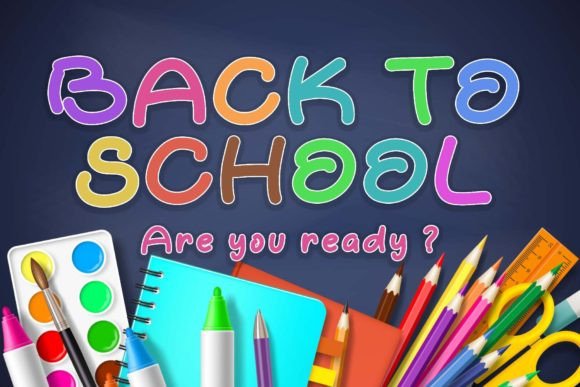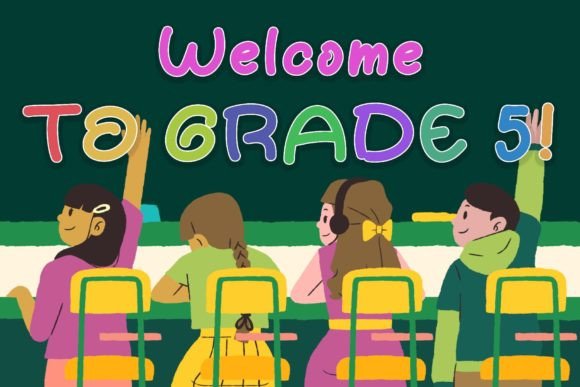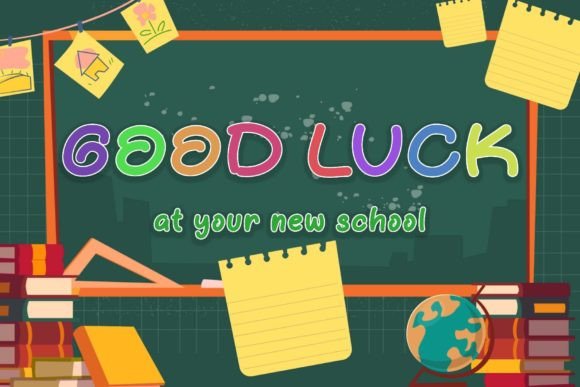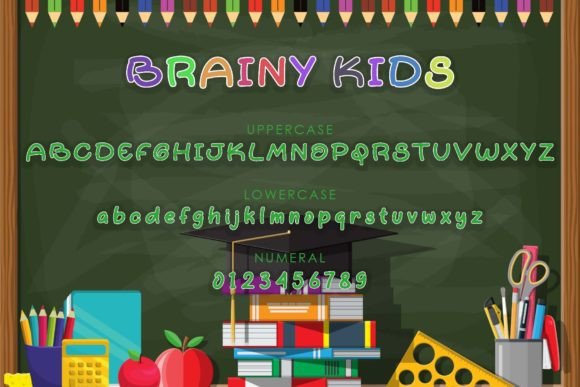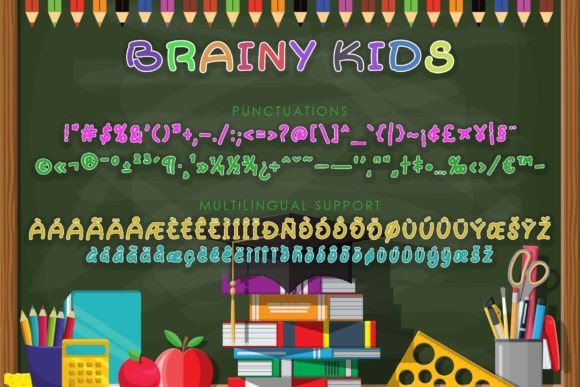
Brainy Kids Font: The Perfect Choice for Designers and Crafters
Are you looking for a unique and elegant display font to make your designs stand out? Look no further than the Brainy Kids Font! This versatile font is perfect for a wide range of projects, from summer and back to school themes to birthday and holiday designs. In this article, we’ll take a closer look at the Brainy Kids Font and explore its features, benefits, and uses.
What is Brainy Kids Font?
Brainy Kids is a distinctive and refined display font that is sure to capture attention. Its elegant and sophisticated design makes it an excellent choice for a variety of creative projects. Whether you’re a designer, crafter, or DIY enthusiast, this font is sure to inspire your next creation.
Key Features of Brainy Kids Font
- Uppercase and Lowercase Letters: The Brainy Kids Font includes both uppercase and lowercase letters, providing you with flexibility and versatility in your designs.
- Numerals and Punctuations: In addition to letters, this font also comes with numerals and punctuations, making it a comprehensive and practical choice.
- Multilingual Support: The Brainy Kids Font supports multiple languages, allowing you to create designs for a global audience.
Perfect for Various Occasions
The Brainy Kids Font is suitable for a wide range of occasions and themes, including:
- Summer and Back to School
- Birthday parties and celebrations
- Christmas and holiday designs
- Father’s Day and other special occasions
- 4th of July and patriotic designs
- Teacher appreciation and educational materials
- Kids’ party themes and decorations
- Funny and playful designs
The Brainy Kids Font offers several benefits for designers and crafters, including:
- Unique and Elegant Design: This font’s distinctive design sets it apart from more common fonts, allowing you to create unique and eye-catching designs.
- Versatility: With its comprehensive character set and multilingual support, the Brainy Kids Font can be used for a wide range of projects and themes.
Tips for Using Brainy Kids Font
Here are some tips for getting the most out of the Brainy Kids Font:
- Experiment with Different Sizes and Colors: Play around with different font sizes and colors to find the perfect combination for your design.
- Pair with Other Fonts: Try pairing the Brainy Kids Font with other fonts to create interesting and dynamic designs.
- Use for Headings and Titles: This font is perfect for headings and titles, so don’t be afraid to use it to make a statement in your designs.
The Brainy Kids Font is a versatile and elegant display font that is perfect for designers and crafters looking to add a unique touch to their projects. With its comprehensive character set, multilingual support, and easy-to-use design, this font is sure to become a go-to choice for a wide range of creative endeavors. Whether you’re designing for summer, back to school, or any other occasion, the Brainy Kids Font is an excellent choice.